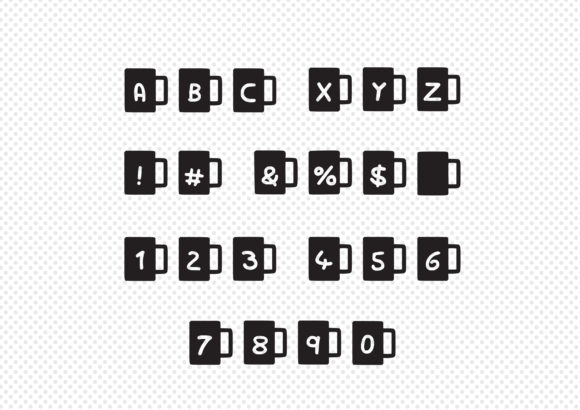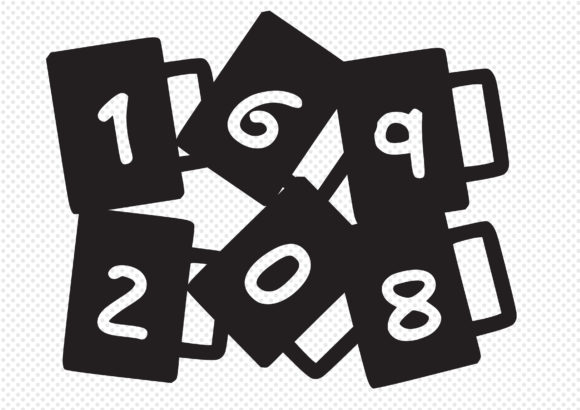
Introduction to Play Mug Font
Have you ever stared at a blank canvas, a blank piece of paper, or even a blank mug, wondering what creative masterpiece you can bring to life? That’s exactly where the magic of fonts comes in. For designers and crafty individuals, finding the perfect font can be the difference between a mediocre project and a truly show-stopping one. And that’s where the Play Mug Font comes in – a delightful, mug-themed decorative font that’s sure to elevate your next creative project.
As a valuable design resource, the Play Mug Font offers a high-quality, transparent background that makes it perfect for use in various crafting projects. Whether you’re looking to add a personal touch to a gift, create a unique design for a product, or simply experiment with your creativity, this font is an excellent choice. And the best part? You can easily download it for free, giving you the freedom to unleash your imagination and bring your ideas to life.
Key Features of Play Mug Font
- High-quality design resource ideal for creative projects, including digital art, graphic design, and more.
- Play Mug Font comes with a transparent background, allowing for seamless integration into various design elements.
- Font size: scalable, with a recommended size range of 12-24 points for optimal readability.
- Resolution: designed for high-resolution displays, ensuring crisp and clear text rendering.
- Unique characteristic: the font’s playful, cursive style makes it perfect for adding a touch of whimsy to creative projects.
Honest Review: Play Mug Font
I recently had the chance to work with the Play Mug Font, and I have to say it’s been a delightful experience. This free download has become a valuable design resource for my creative projects.
What works well with this font is its high-quality design and versatility. It’s perfect for a variety of projects, from casual social media posts to more formal presentations. I particularly appreciate the transparent background, which makes it easy to layer with other design elements.
Here are some of the features that stood out to me:
- Highly legible and readable
- Compatible with a range of design software
- Easy to customize and edit
- The font may not be suitable for formal or professional projects due to its playful nature
- It may not be as durable as other fonts when scaled up or down
Overall, I’m impressed with the Play Mug Font. It’s a great choice for designers looking for a fun and creative font to add some personality to their projects. Just be sure to use it in the right context to get the most out of it. ✨
Tips for Getting the Most Out of Play Mug Font
Use the Play Mug Font for a variety of creative projects, such as mugs, t-shirts, and social media graphics. Experiment with different font sizes, colors, and styles to find the perfect combination for your project. Also, make sure to use a high-quality image or graphic with a transparent background to ensure a professional finish.
Common Use Cases for Play Mug Font
The Play Mug Font is perfect for designers looking for a fun and playful font to use in their creative projects. Some common use cases include designing mugs, t-shirts, and social media graphics for events, holidays, and promotions. The font is also great for creating custom labels, stickers, and other print materials.
Q: Is the Play Mug Font suitable for large-scale printing?
Yes, the Play Mug Font is designed to be scalable and suitable for large-scale printing. The font is built using high-quality vectors, ensuring that it retains its crispness and clarity even at large sizes. However, please note that the quality of the print may depend on the specific printing method and equipment used.